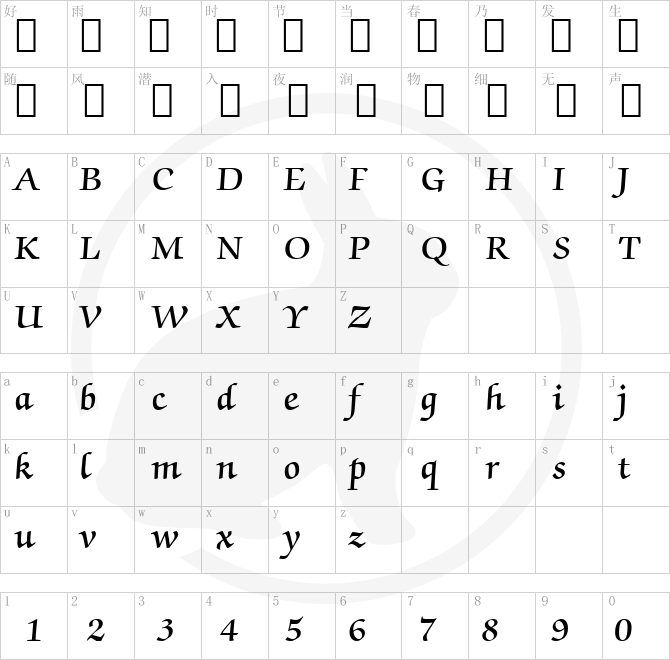
- Font Name:ZapfChan Dm BT
- Subfamily:Demi
- Subfamily:ITC Zapf Chancery Demi, Chancery 801
- Full Name:Zapf Chancery Demi BT
Zapf-Chancery-Demi-BT-copy-1-.ttf is a very beautiful artistic font, Zapf-Chancery-Demi-BT-copy-1-.ttf is widely used in the design and printing of various books and pictures,Zapf-Chancery-Demi-BT-copy-1-.ttf has a strong visual impact,Zapf-Chancery-Demi-BT-copy-1-.ttf is a commonly used font in newspapers, magazines and books, and is used in posters, e-commerce Poster design, store design, logo design, font design and other fields.Zapf-Chancery-Demi-BT-copy-1-.